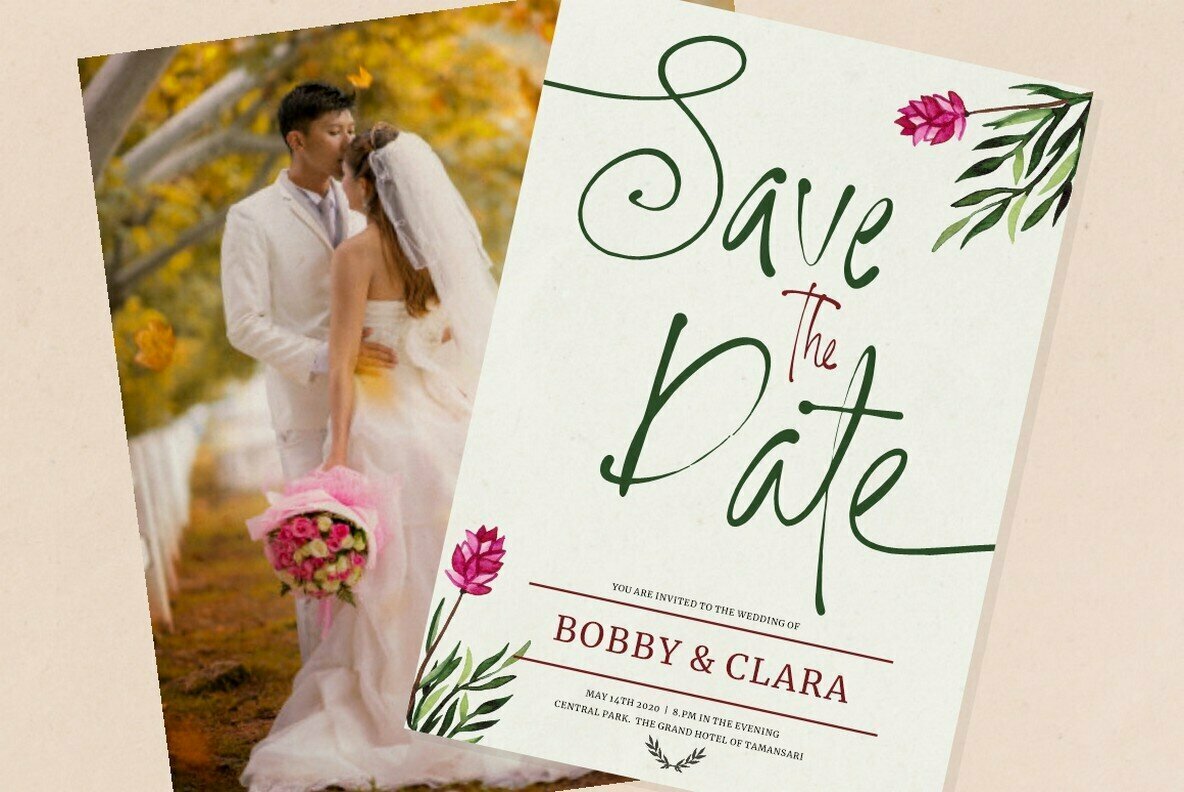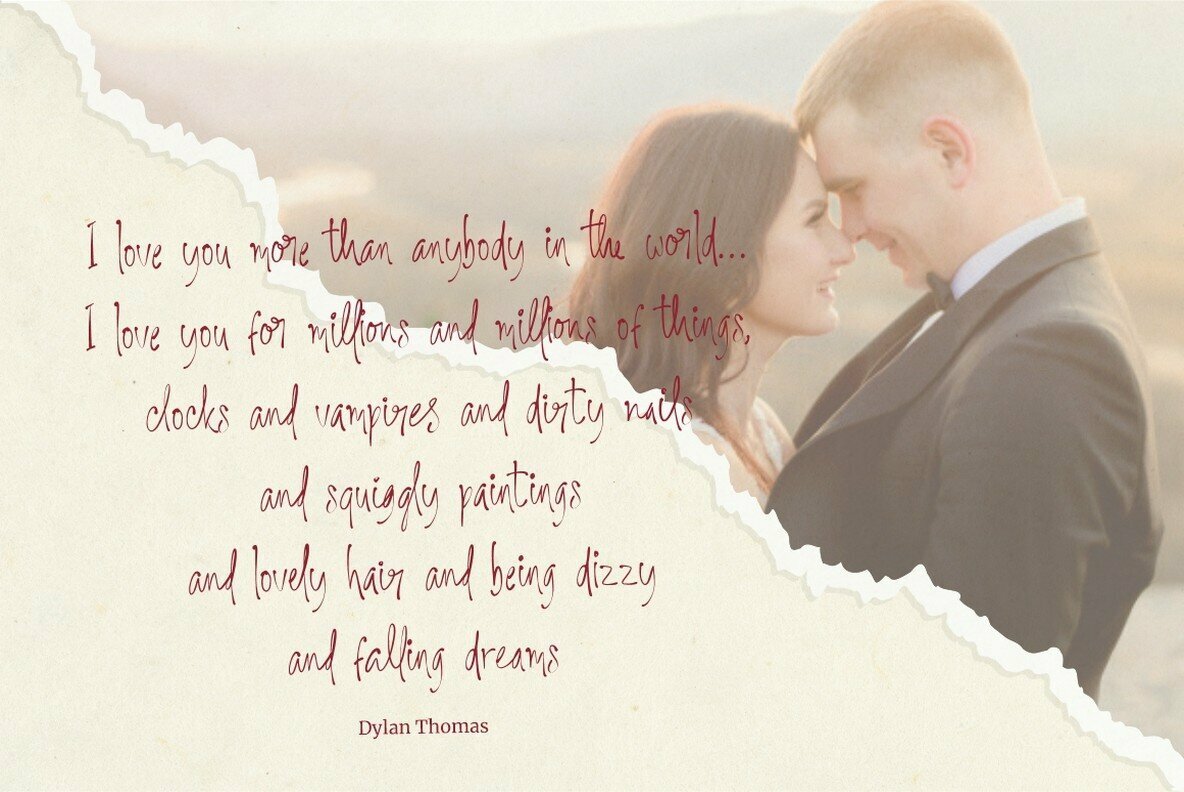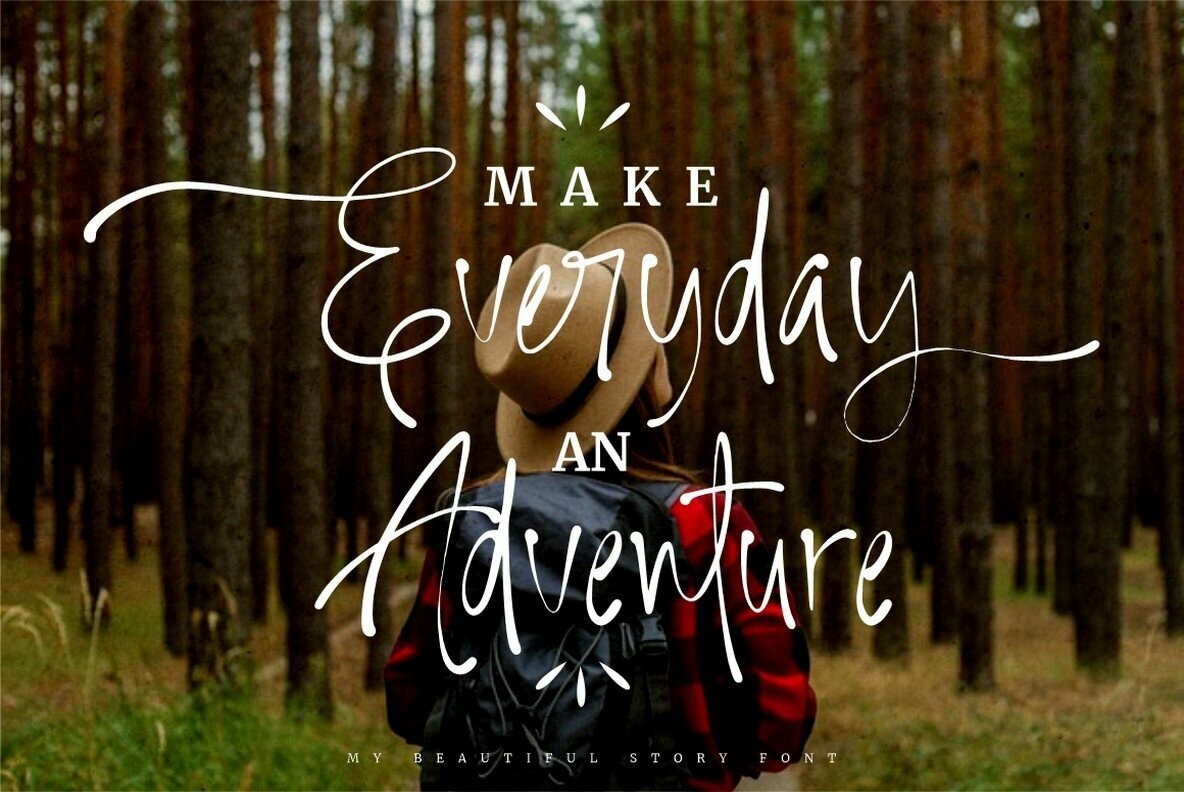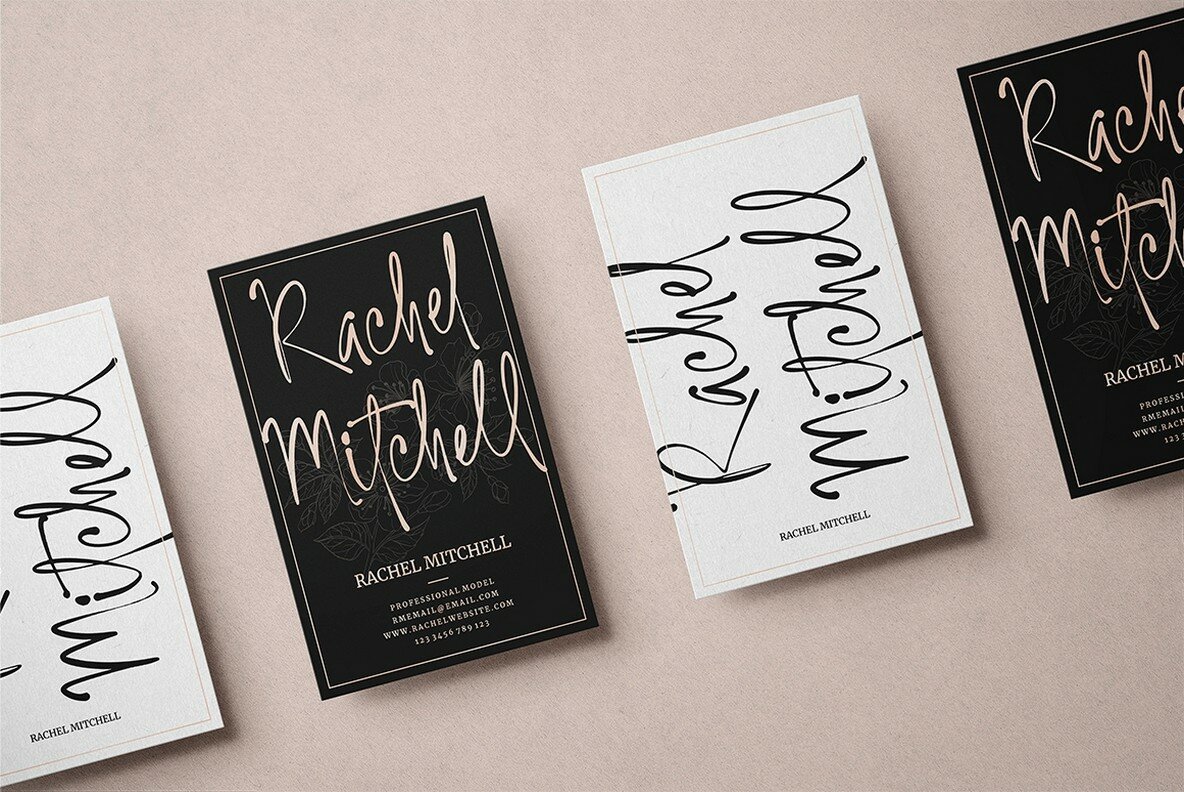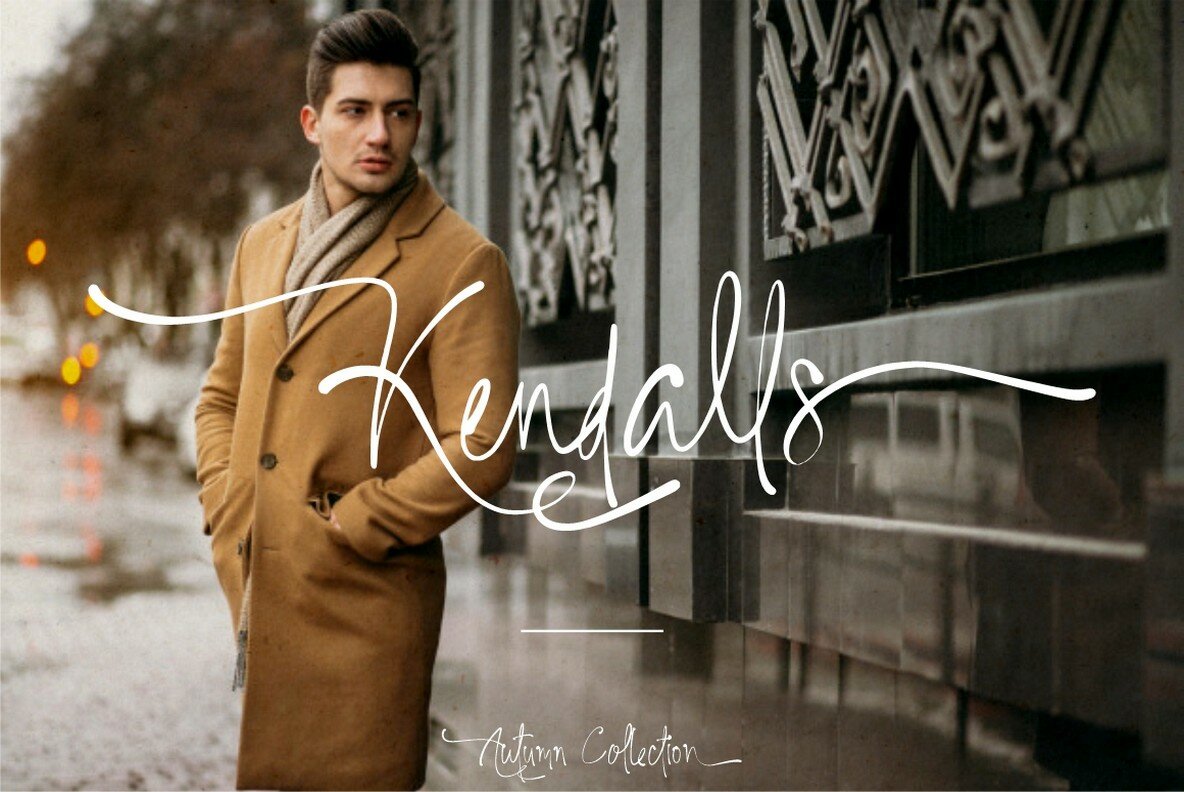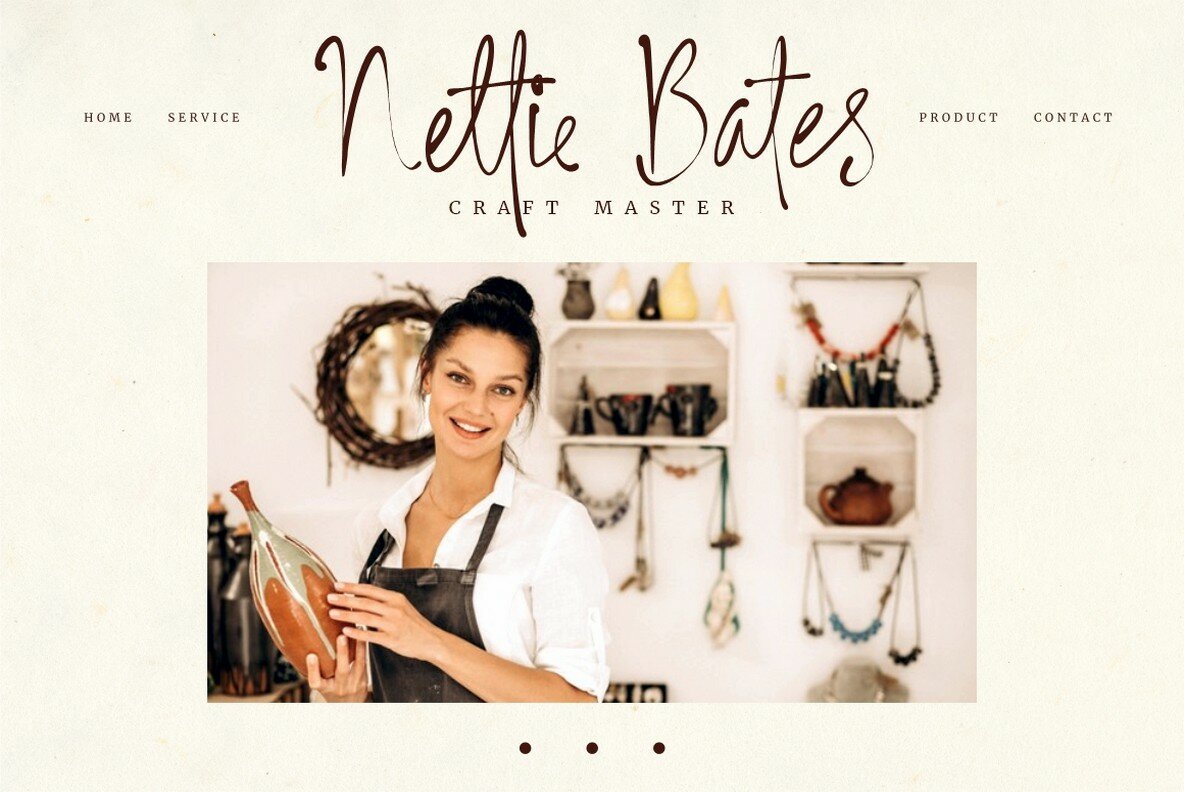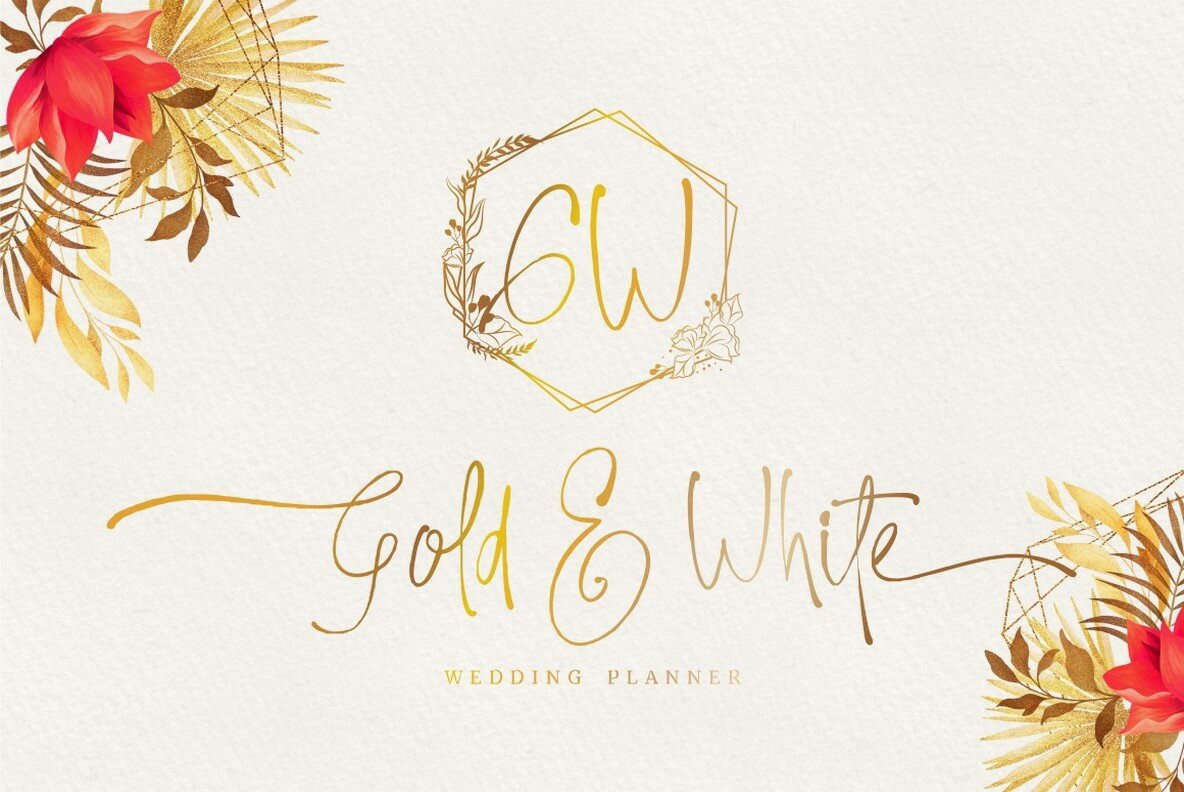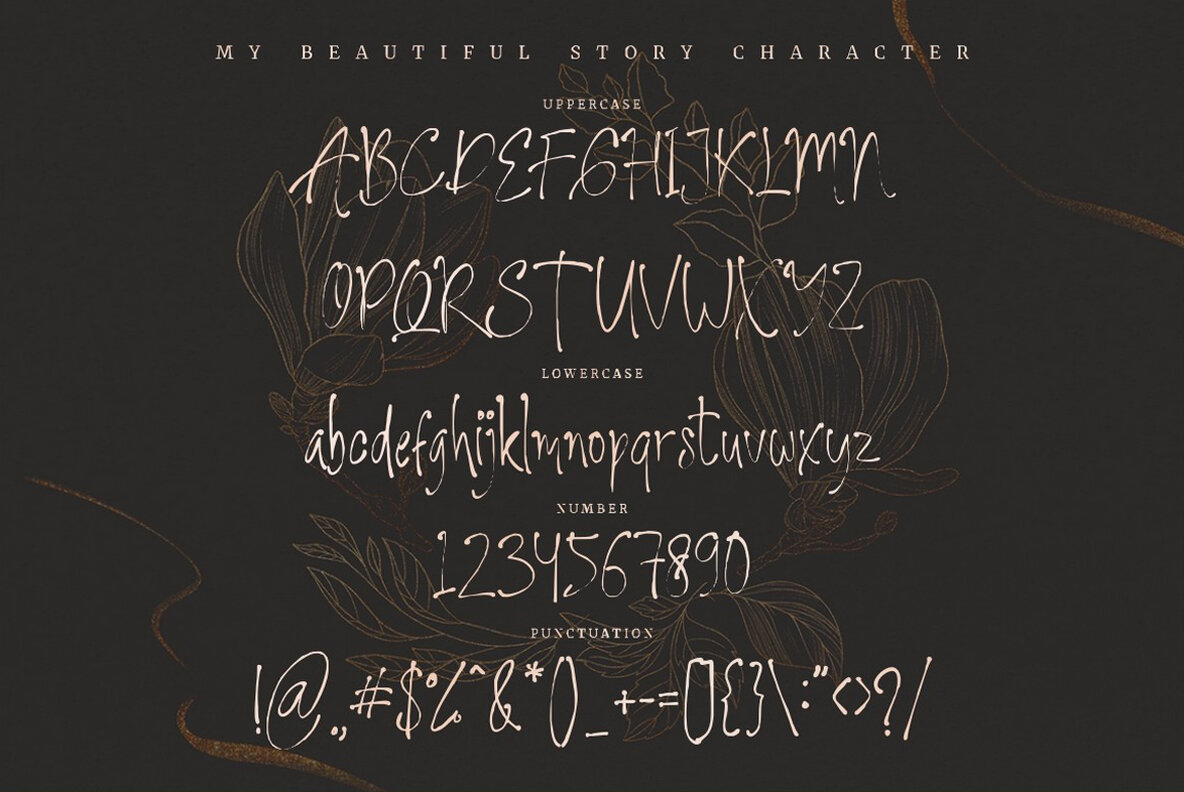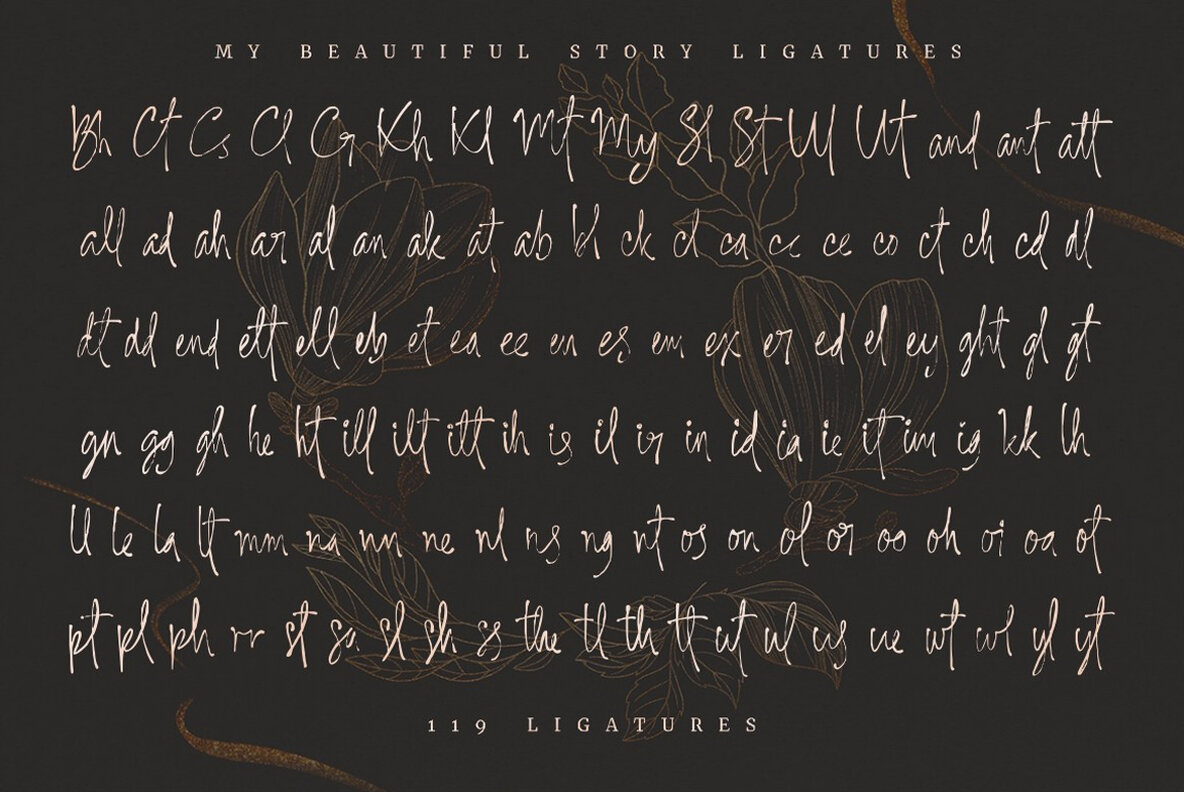
My Beautiful Story Font
My Beautiful Story
Immerse yourself in the artful elegance of My Beautiful Story, a stylish handwritten font that exudes natural sophistication. Designed by Putra Novembria Candra Kusuma, this font captures the genuine essence of handwritten text, complete with 119 custom ligatures and graceful swashes. Its versatility is evident in its ability to add character and charm to a variety of projects, from signatures and invitations to posters and social media graphics. Features: Ideal for creating exquisite lettering, My Beautiful Story is perfect for enhancing wedding designs, logos, quotes, and much more. Its multi-language support ensures that your message is beautifully communicated across different languages. Discover the elegance this font brings to your creative endeavors.My Beautiful Story: A Handwritten Elegance